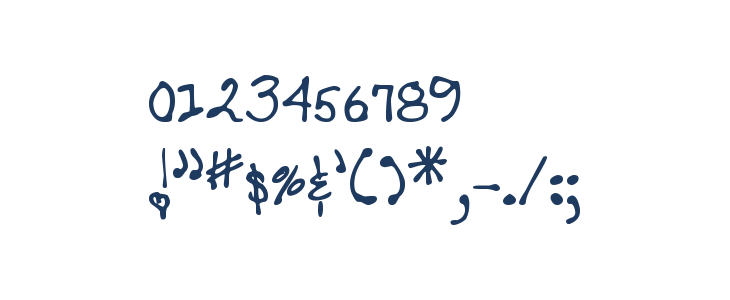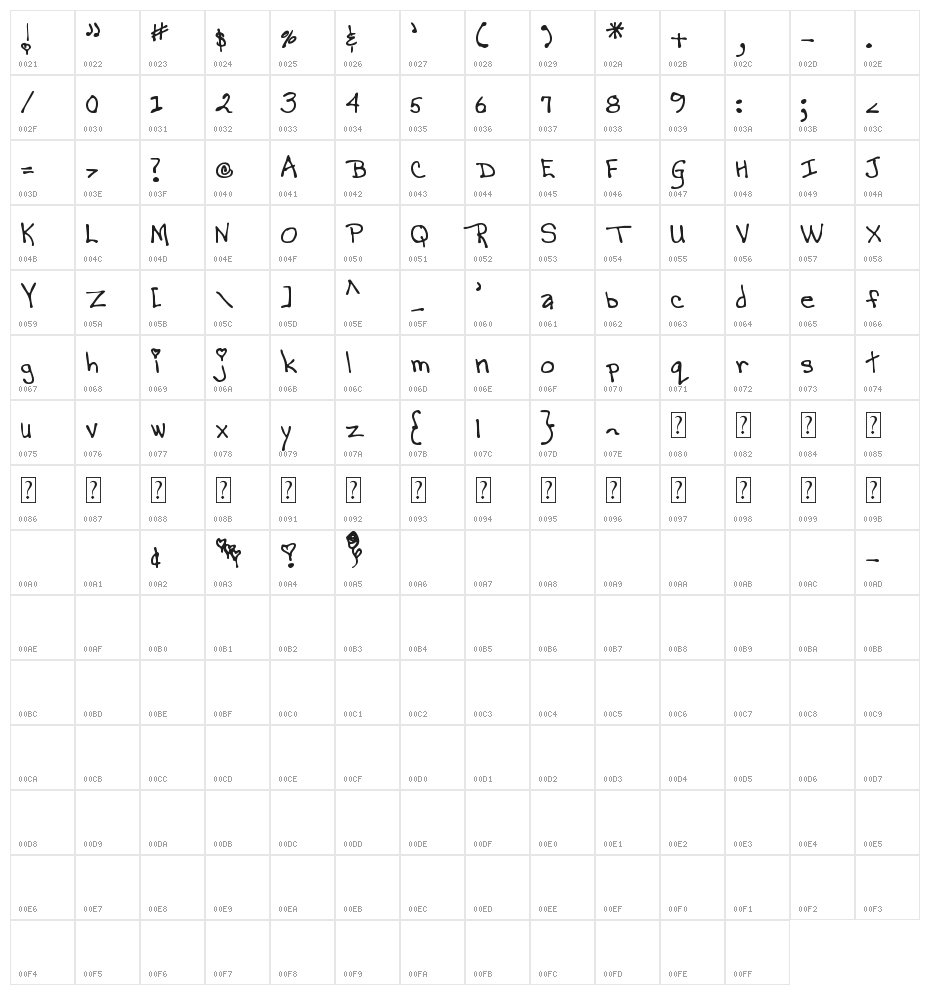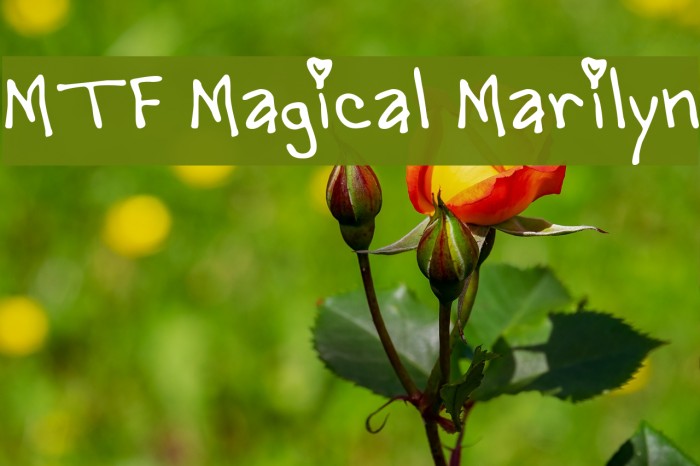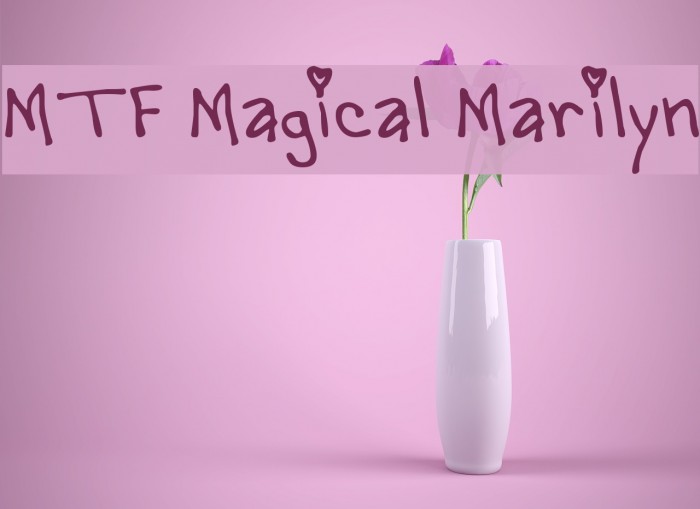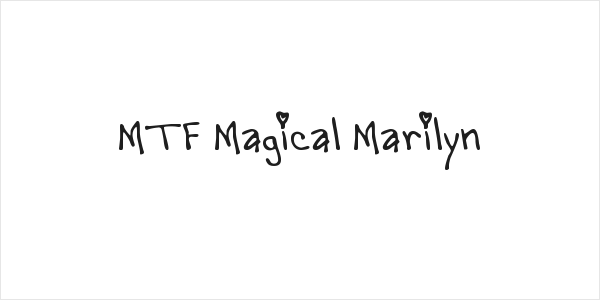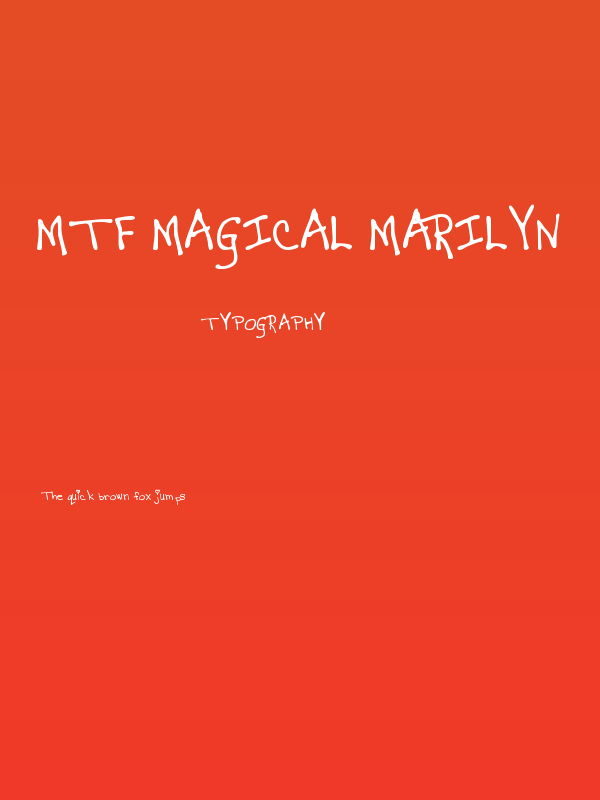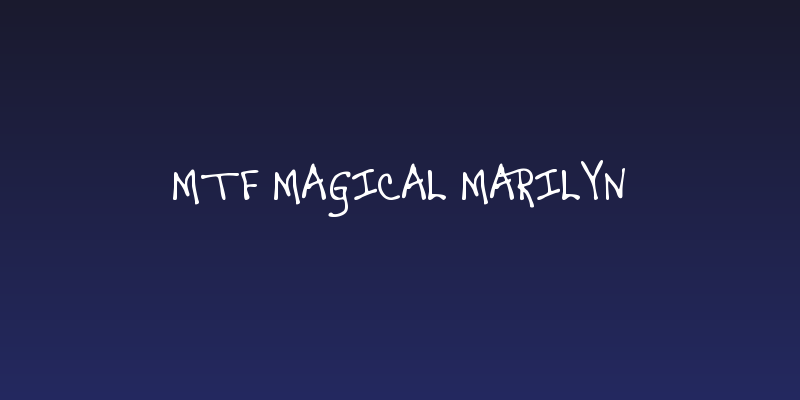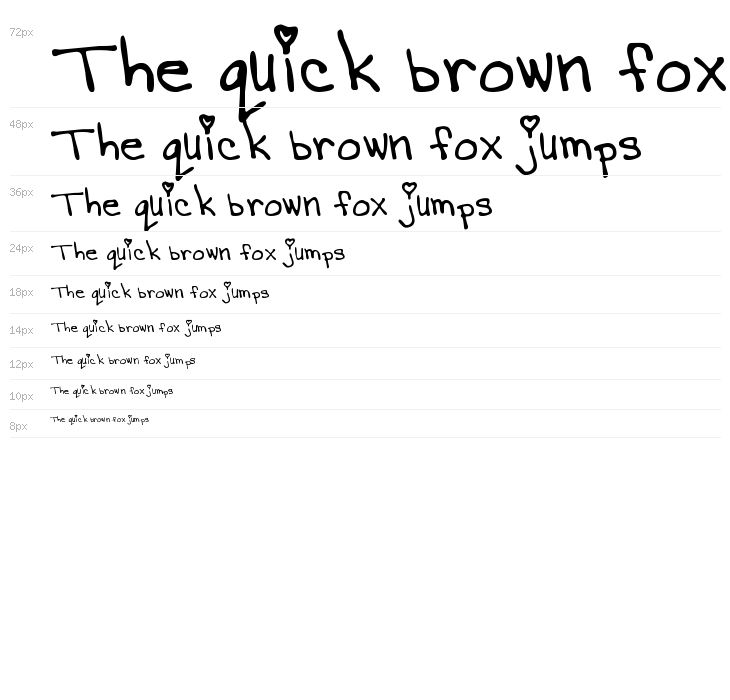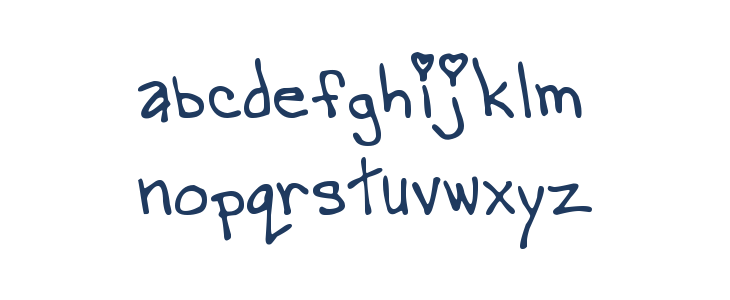
MTF Magical Marilyn Font
MTF Magical Marilyn Description
This playful and whimsical font features a handwritten style with a casual and informal appearance. The letters are slightly uneven, adding to its charm and giving it a personal touch. The uppercase letters are bold and prominent, while the lowercase letters maintain a consistent flow with unique embellishments, such as the heart-shaped dots on the 'i' and 'j'. The numbers are clear and easy to read, matching the overall style of the alphabet. Special characters are creatively designed, enhancing the font's playful nature. This font is perfect for projects that require a fun and lighthearted feel.